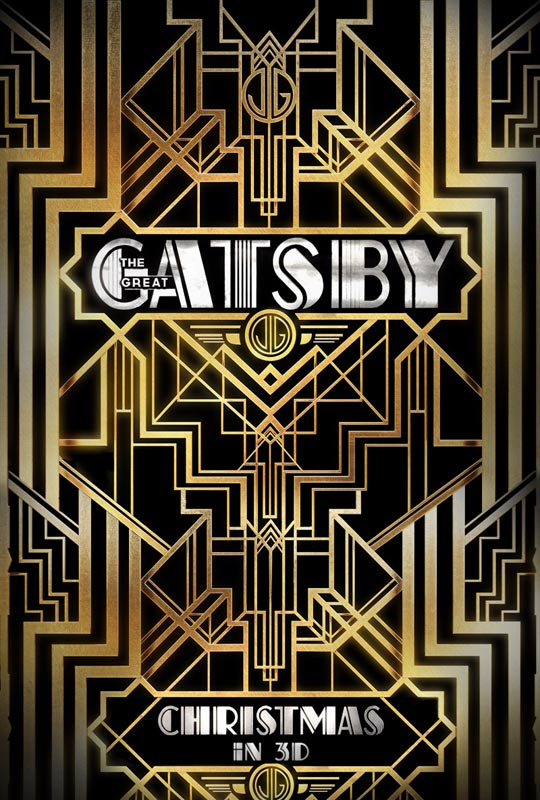
This is the one of the movie posters from the movie the Great Gatsby. I saw that another student used a different poster from the same movie/book to talk about but I chose to still use this typeface as an example because it is so unique. The decorative chrome typeface adds and supports the theme of the movie which is the glitz and glamour of the ultra-stylized 20s that the movie takes place in. The font looks extremely classy but is still used in a fitting and unconventional way. The font has a dimensional effect especially with the thick layer of shiny chrome on top of it. The type has a high contrast in letter shapes as well as the incorporated stripe pattern. Together with the kaleidoscopic pattern, the typeface successfully established a glittering roaring twenties atmosphere that the story is set in. Though this font is decorative, it is still a sans serif so as not to appear as an overwhelming font with all the other elements that are added. This typeface is appropriate for the content as it is very flashy. The typeface is also very chunky and bold and thick. The scale of the words “the great” obviously is to highlight the main part of the title which is “Gatsby”. It is hard to try to classify this typeface as it is very decorative but appears very bold. The contrast between some of the stripes applied adds extra dimension and pizzazz that makes the typeface especially intriguing to the eye. This typeface in this title doesn’t appear big and bulky as it should due to the contrast with the rest of the content of the movie poster. The use of all capital letters creates a very clean line with no ascending elements.